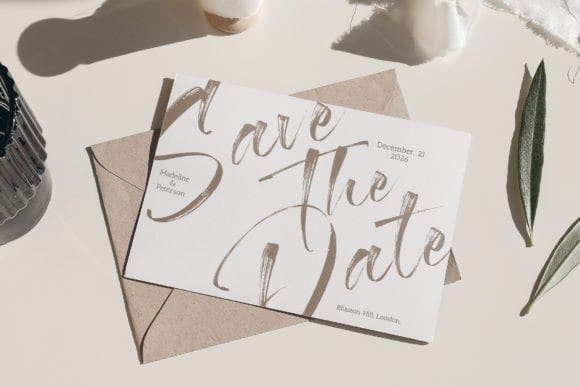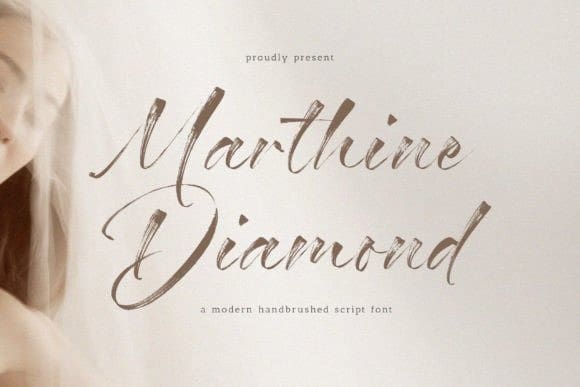
Marthine Diamond Font
Marthine Diamond Font is a Modern Handbrushed Script Font. This font unlocks the appeal of contemporary design with a modern handwritten font, a symphony of sophistication and spontaneity. This font effortlessly combines the precision of digital craftsmanship with the organic flow of hand-drawn elegance. Each letter is a brushstroke of innovation, adding a dynamic and bespoke touch to your project.
The sleek curves and smooth lines of modern hand script fonts create visual harmony, infusing your designs with a sense of stylish authenticity. Enhance your creative expression, as these fonts integrate seamlessly into a modern aesthetic, offering the perfect balance between avant-garde pieces and timeless works of art. Let your words take on a new dimension, where art blends technology and tradition, giving life to a contemporary narrative that is visually striking and uniquely yours